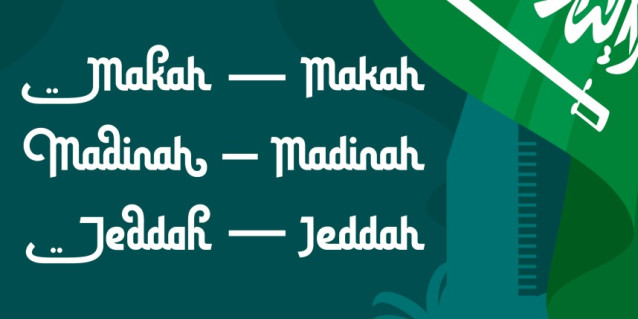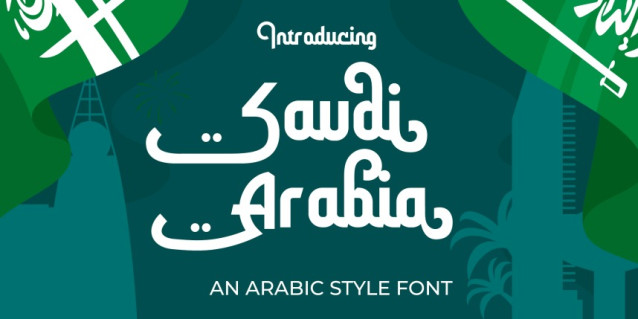
Saudi Arabia Font
Saudi Arabia Font is a modern Arabic typeface that beautifully blends the classic charm of Arabic calligraphy with a sleek, contemporary touch. Designed for versatility and visual impact, this Arabic font style is perfect for designers seeking cultural depth combined with a modern edge.